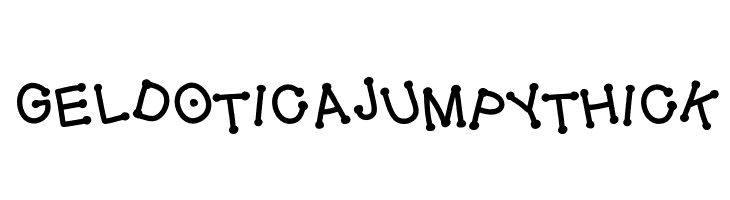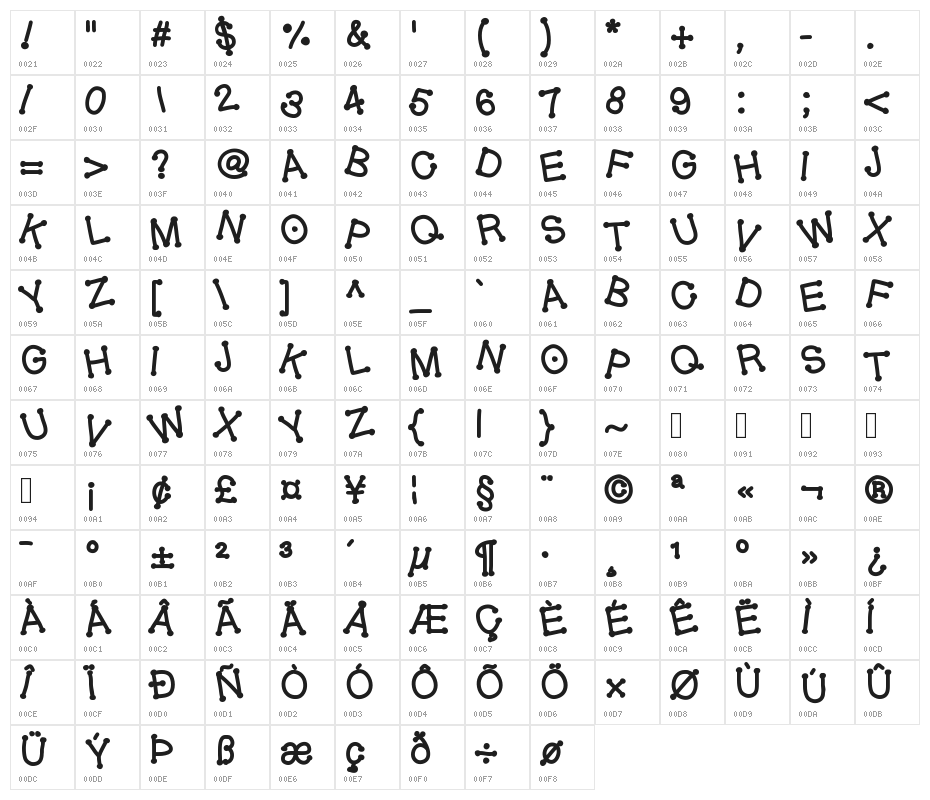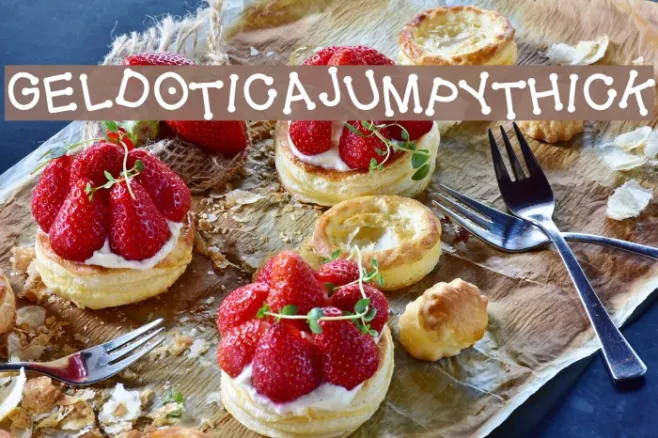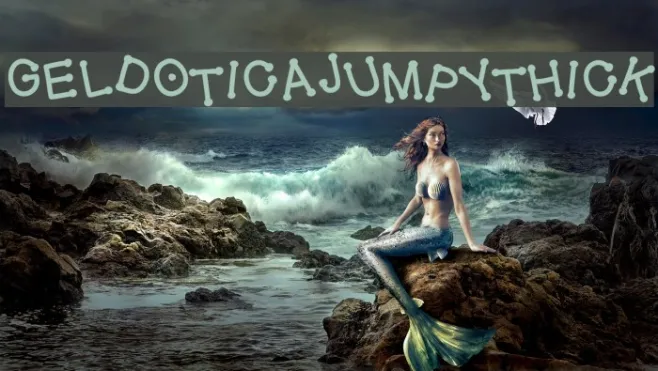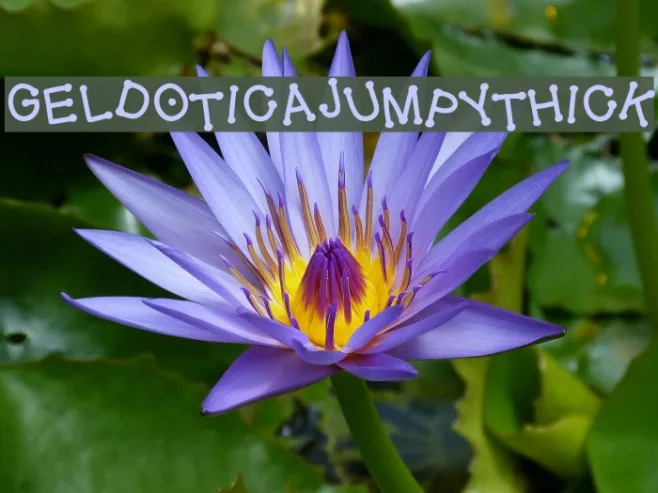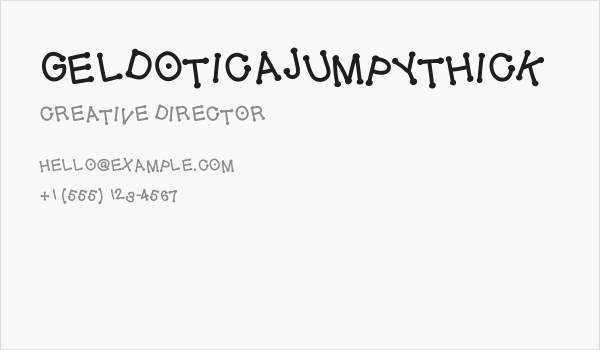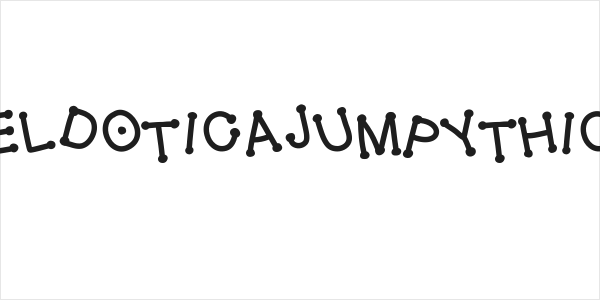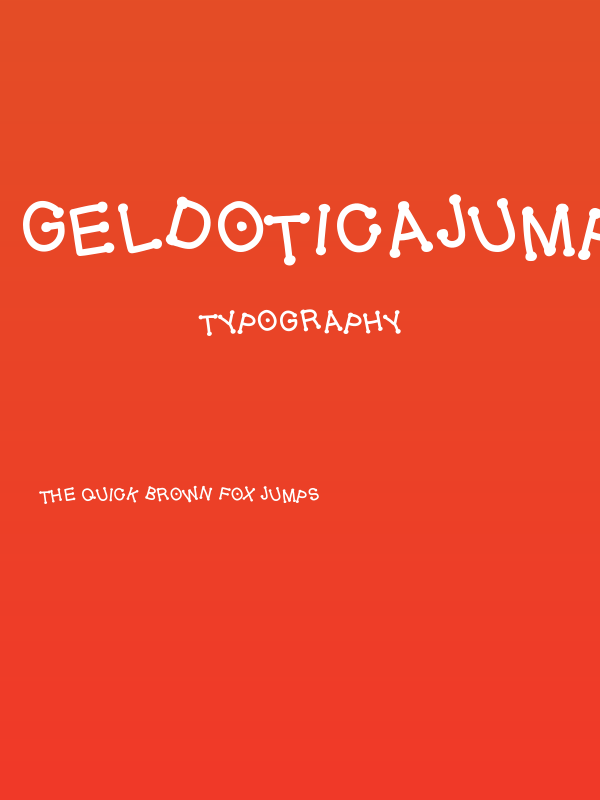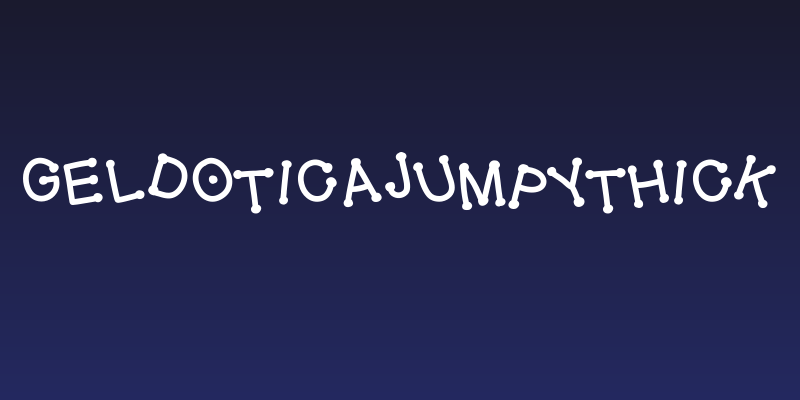
GelDoticaJumpyThick Font
GelDoticaJumpyThick Description
This playful and whimsical font features a unique design with thick, rounded strokes and a bouncy baseline, giving it a lively and energetic appearance. The characters are crafted with bold, circular terminals that add a sense of fun and movement. The uppercase and lowercase letters maintain a consistent style, with a slight tilt that enhances the font's dynamic feel. Numbers and special characters are equally bold and rounded, ensuring uniformity across all elements. This font's distinctive style makes it stand out, perfect for projects that require a touch of creativity and playfulness.
| Overall Style | Playful, Energetic, Whimsical |